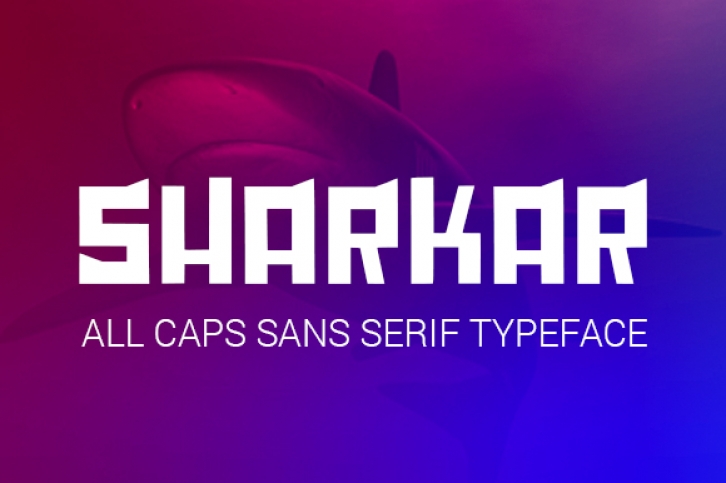
Sharkar is a bold sans serif all caps font, ideal for your displays and headline designs. This modern font is inspired by majestically lethal white sharks, making it severe and enthralling.